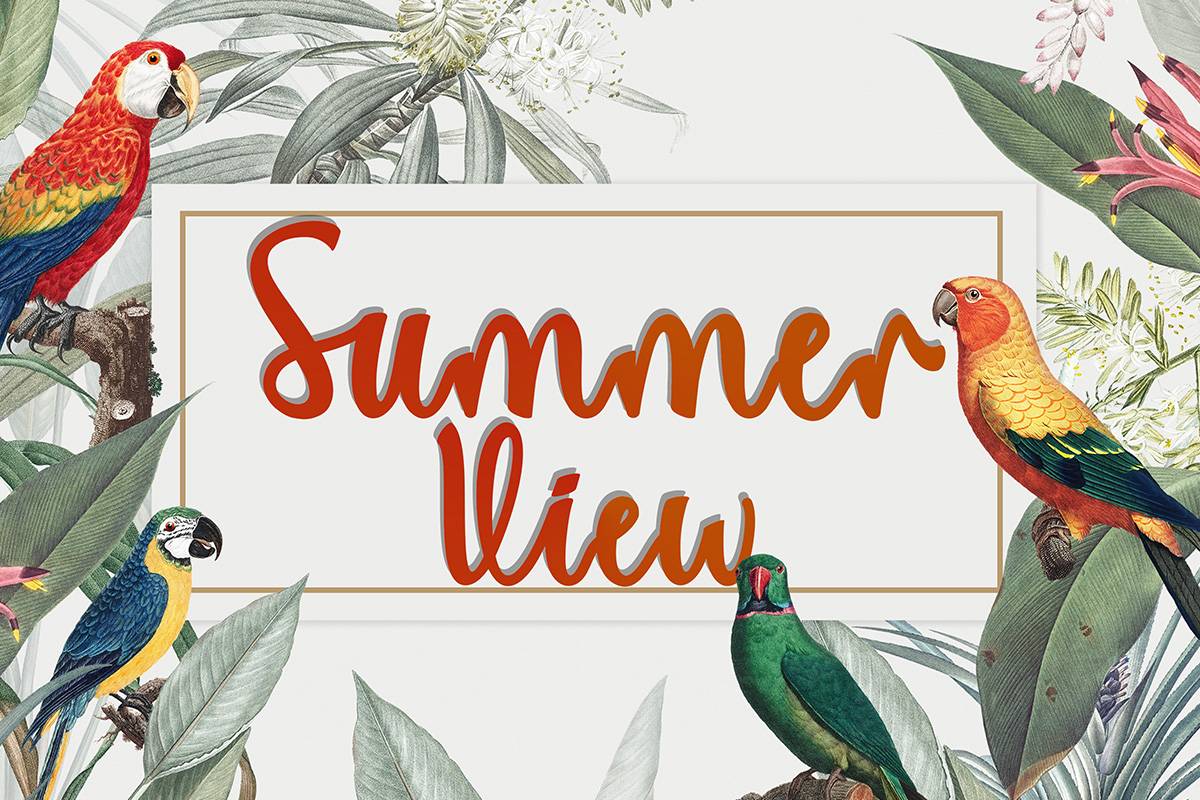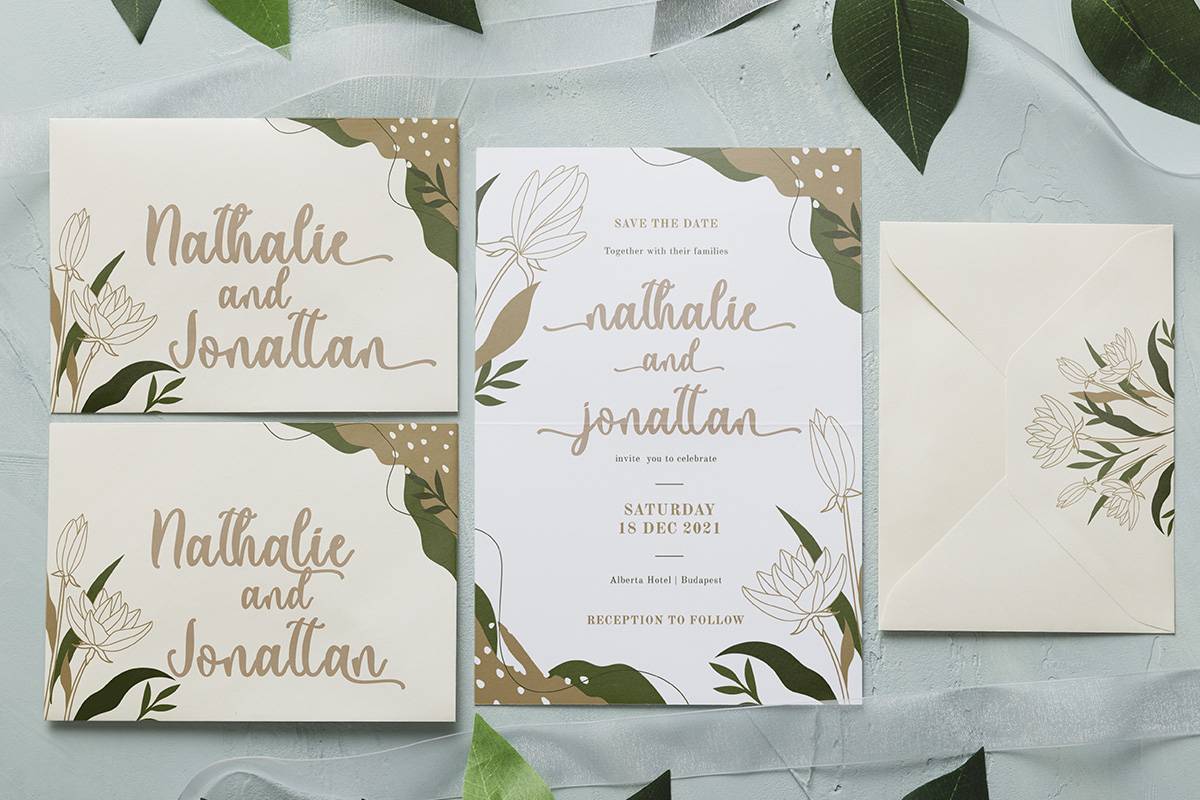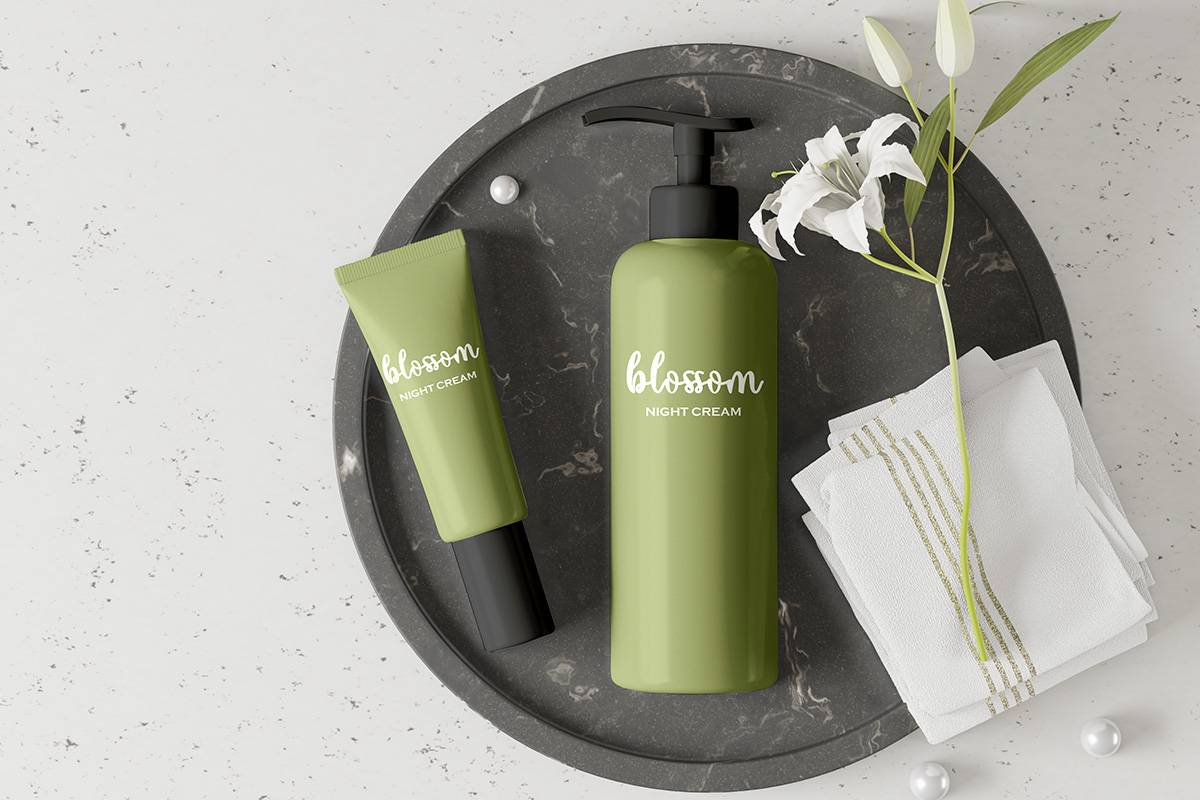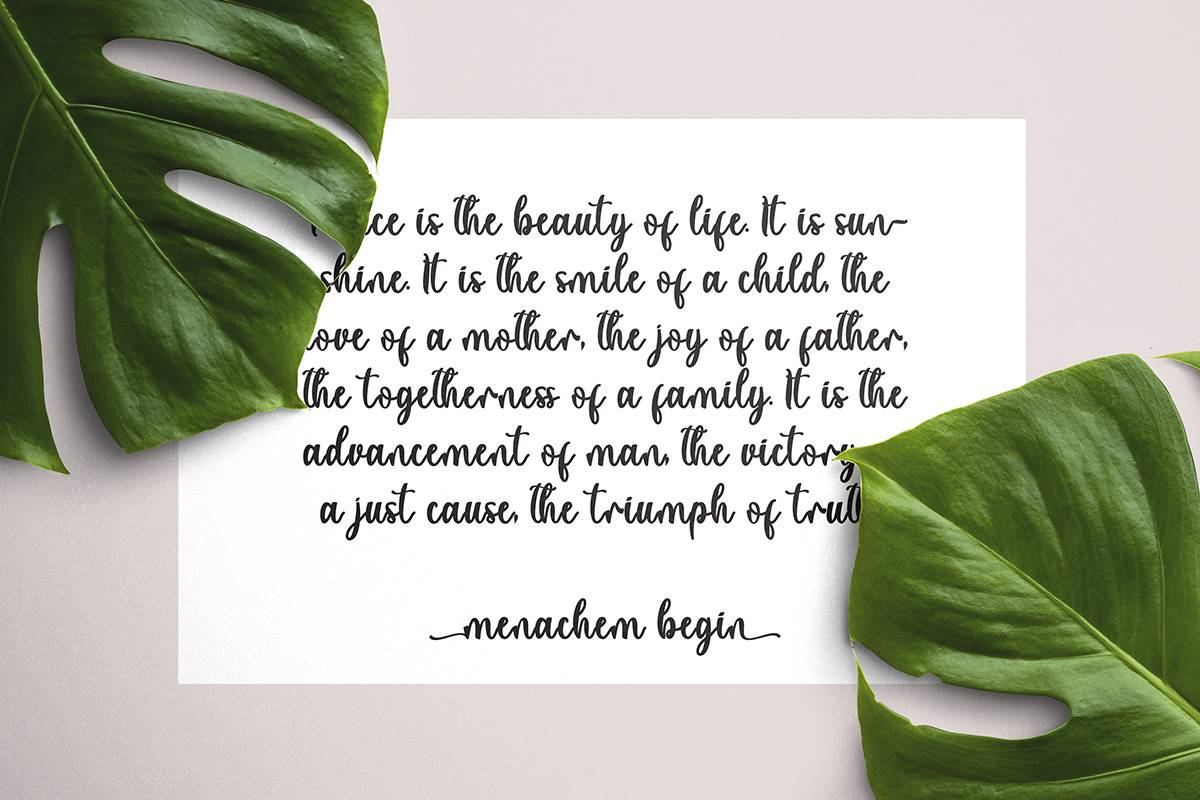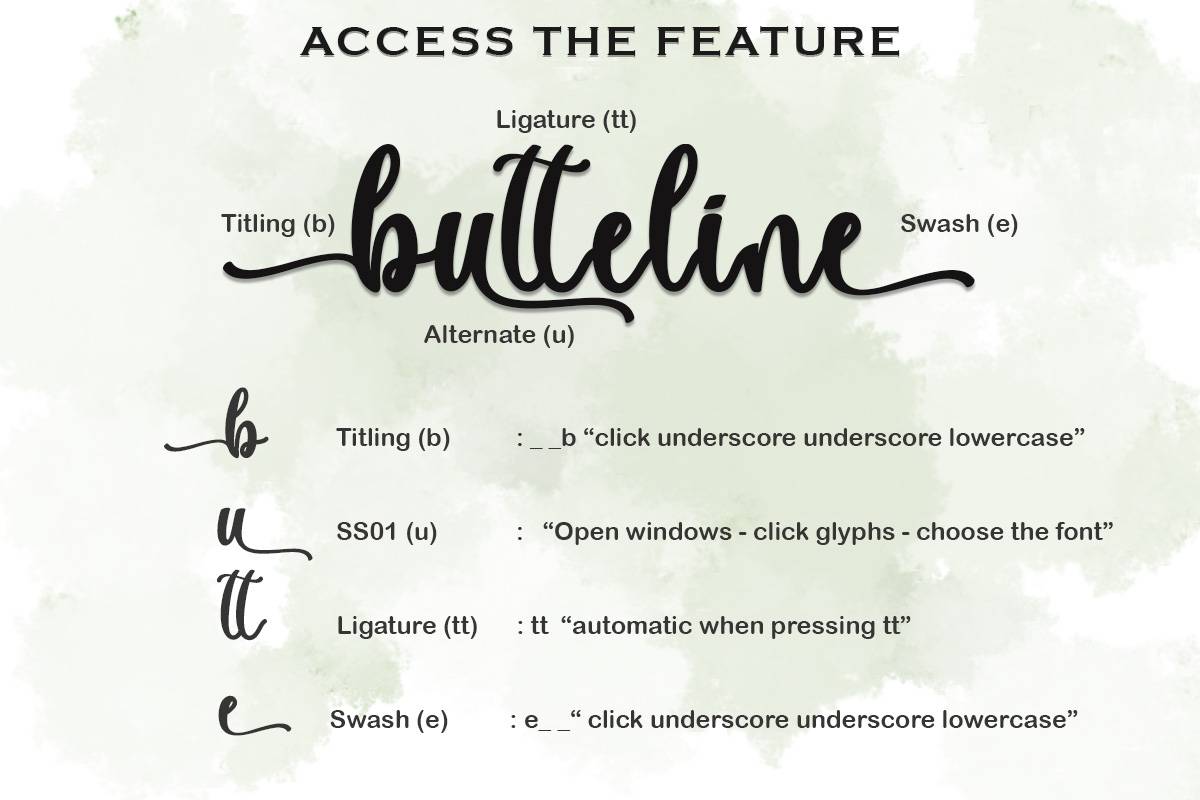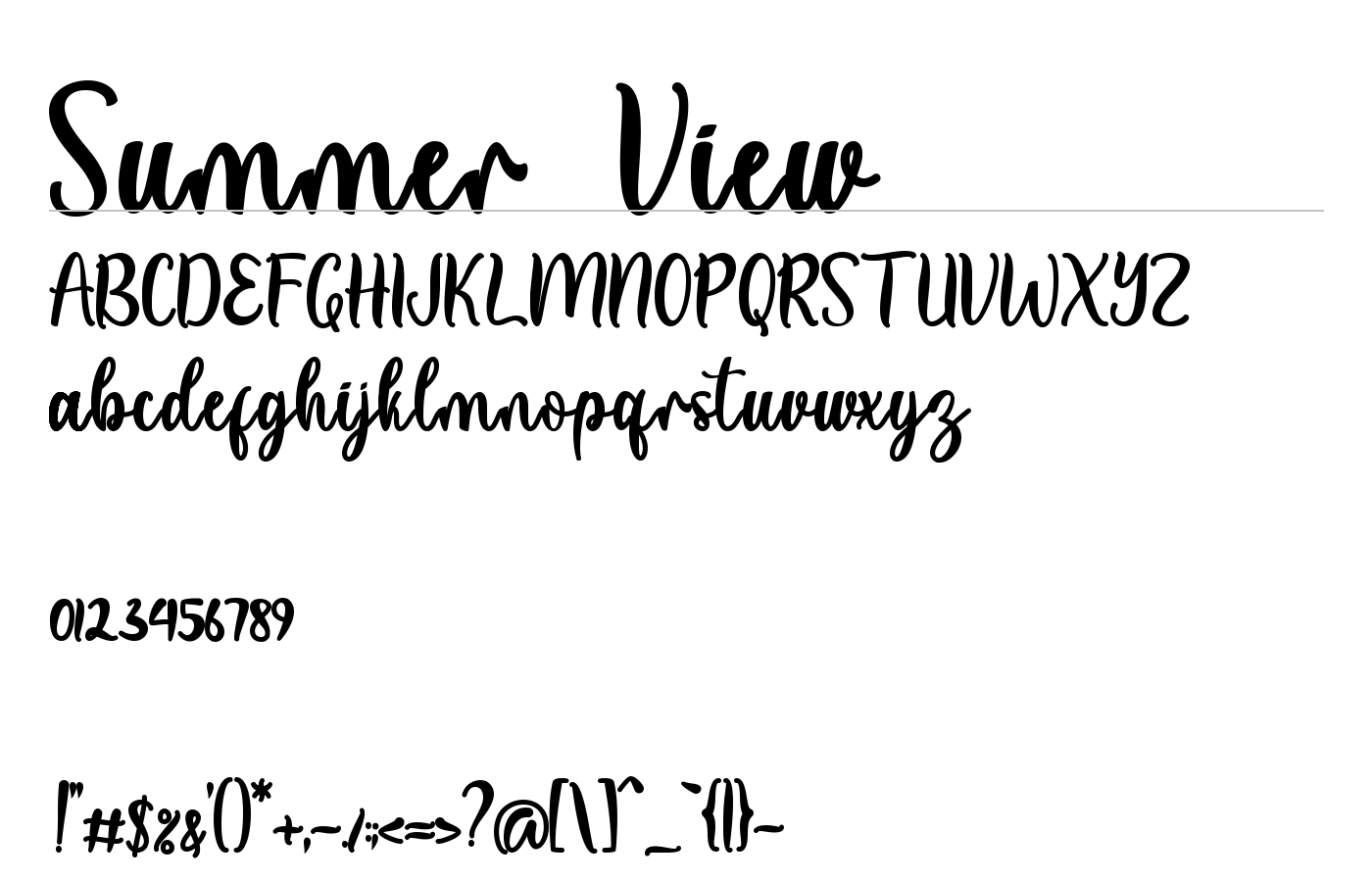
Summer View is a playful and friendly script font with a casual handwritten feel, featuring smooth curves and a lively rhythm. Its moderately high x-height and consistent stroke weight make it readable and approachable, ideal for conveying warmth and creativity. Perfect for branding, invitations, and lifestyle projects, it brings a fresh, informal charm that enhances relaxed and joyful visual messages.
Summer View Font
About Summer View Font
| Font family | Summer View Font |
| Release date | 2021-05-29 |
| Designer | Yoga Letter 2021 (Isroni Yoga Prasetya) |